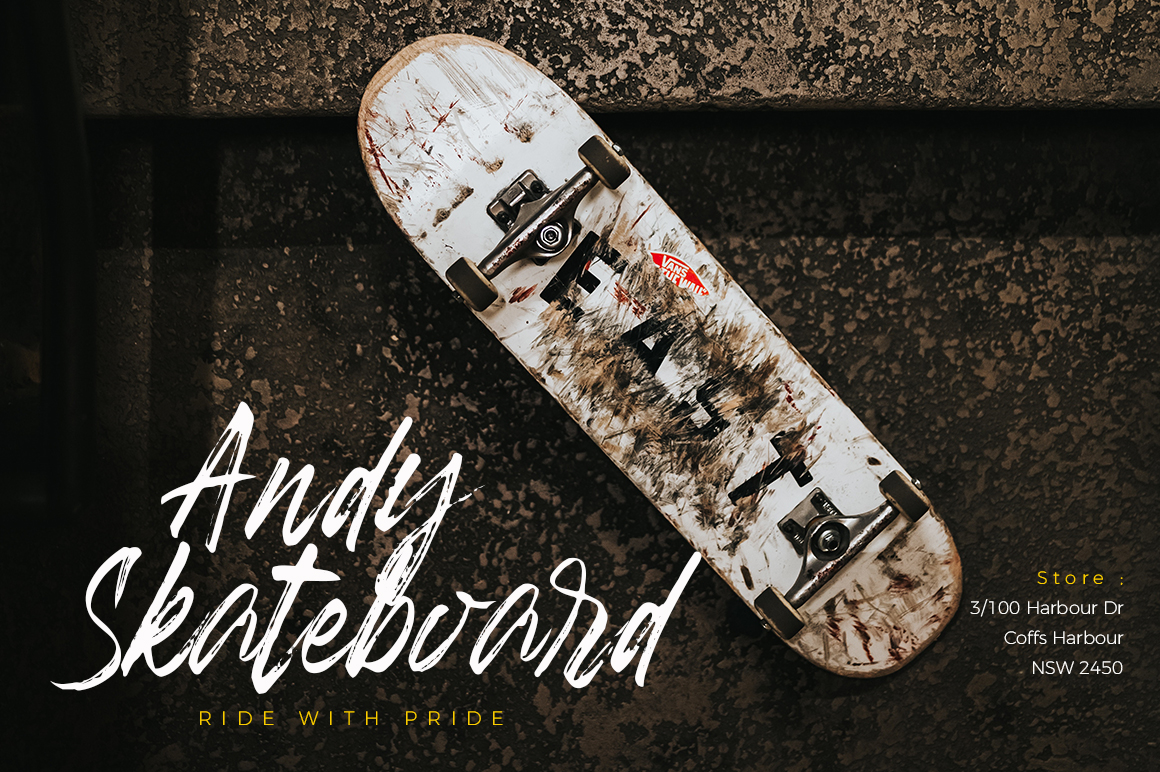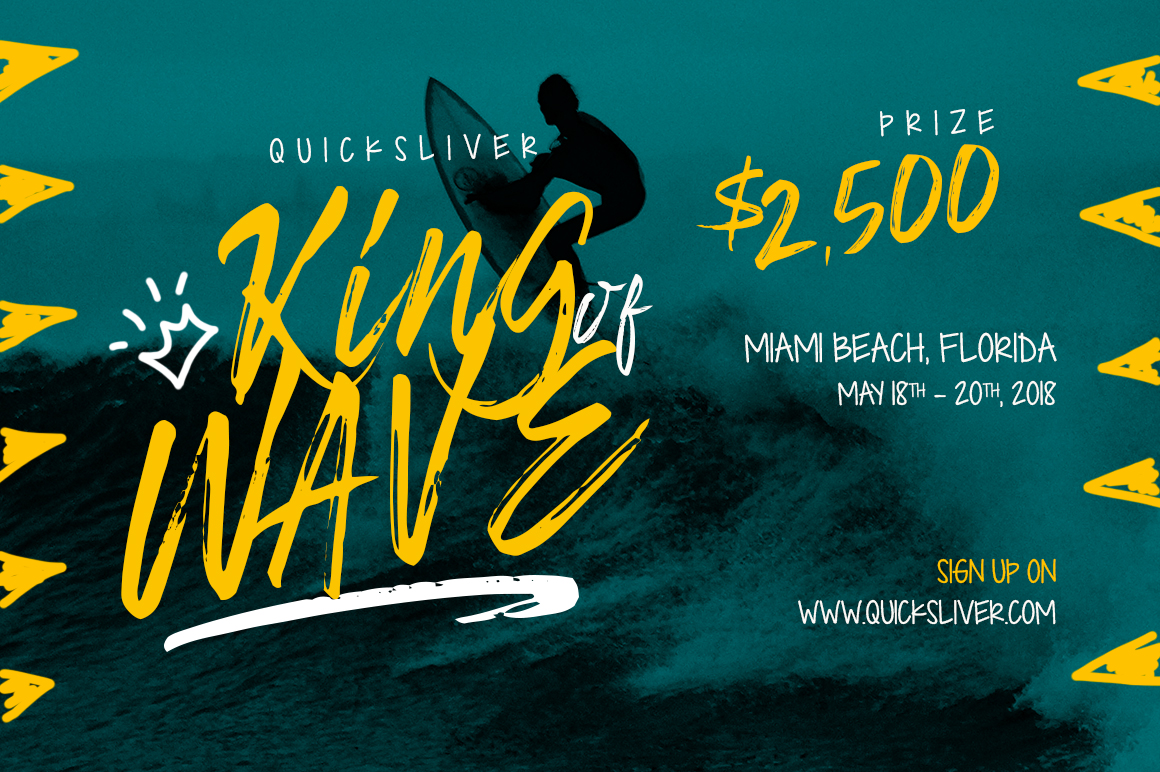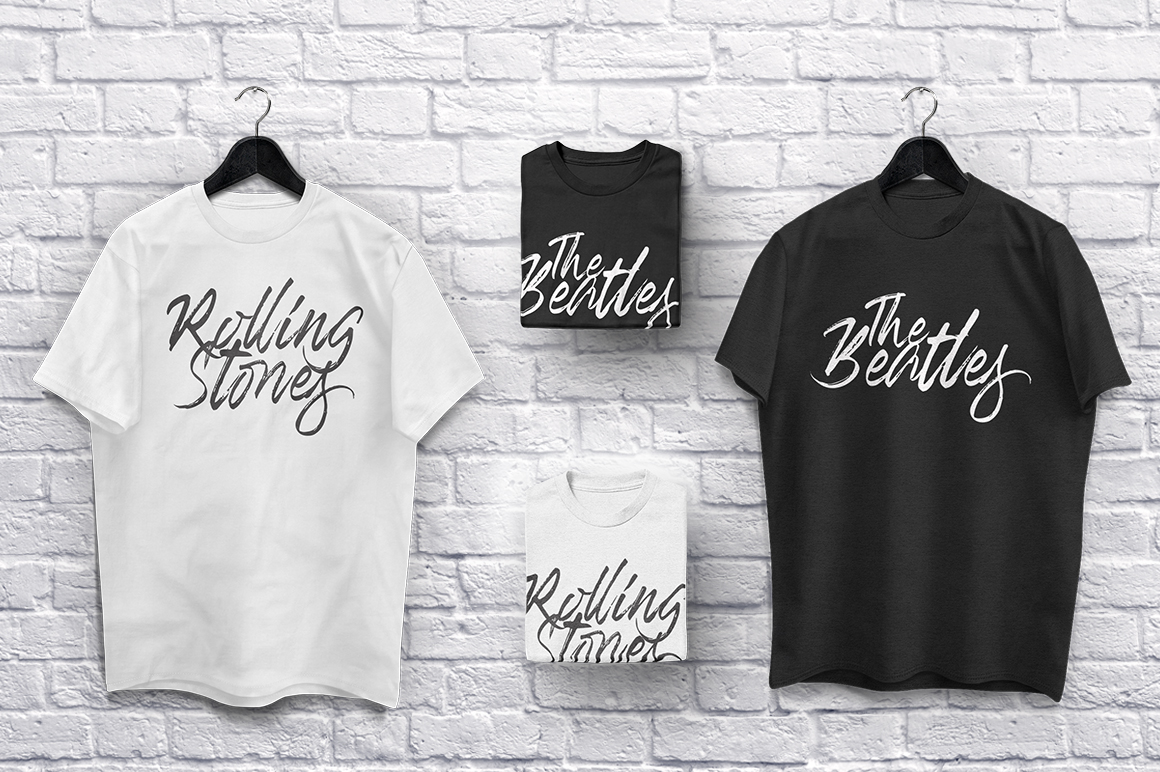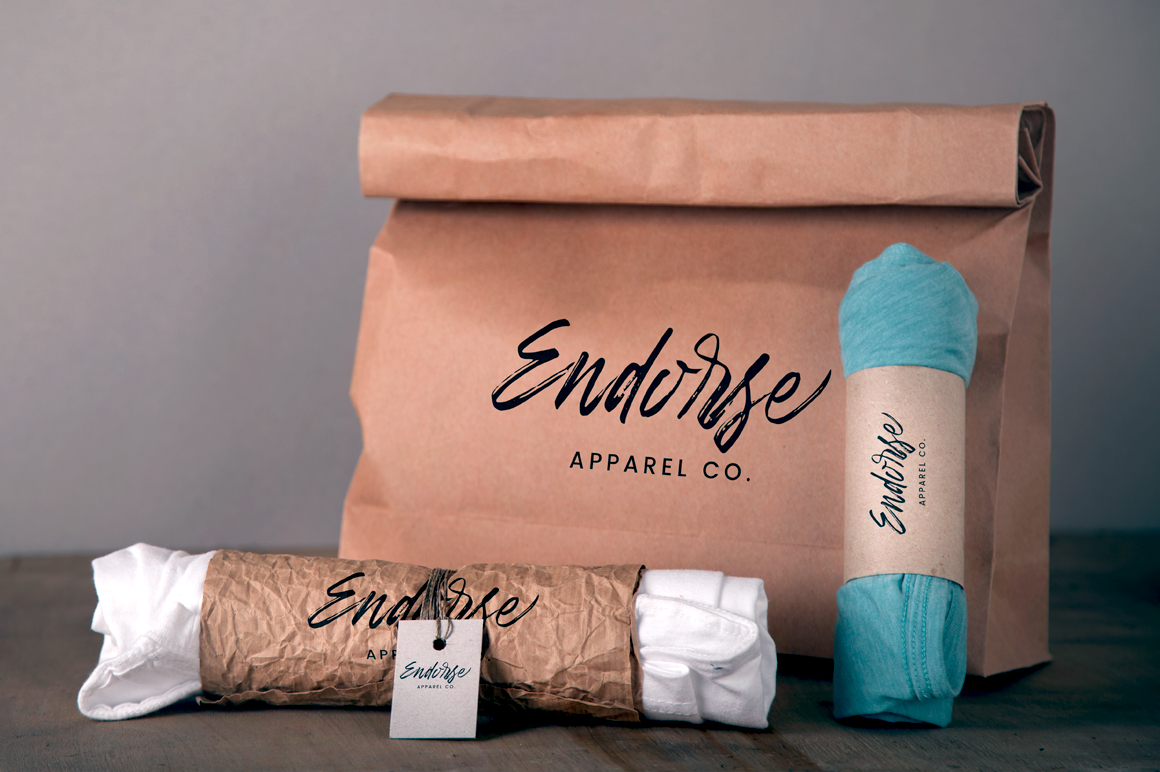
Banshee Brush Free Font
Banshee Brush Free Font is a dry brush script font made from natural flow scratch with signature style. This font will bring your latest project looked more bold, sophisticated, and modern. Banshee Brush Free Font offers gorgeous typographic will perfect for many different projects such as logos & branding, invitation, stationery, wedding designs, social media posts, advertisements, product packaging, product designs, label, photography, watermark, special events or anything that need handwriting taste. This free typeface was designed by a talented Creatype Studio. If you like it don’t forget to check out the full version.